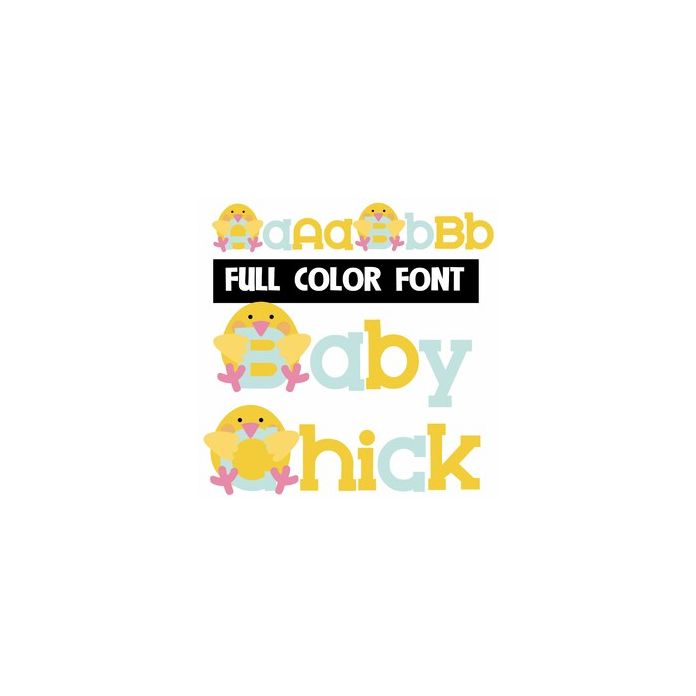
This full-color font features baby chicks holding light blue uppercase letters. The lowercase is without chicks. There is a yellow alt case of both upper and lowercase letters you can access through Silhouette's glyph map.